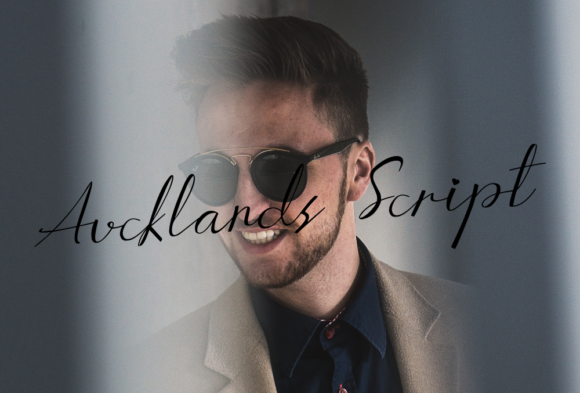
The Designer’s Delight: Aucklands Script Font
I’ll never forget the time I was working on a wedding invitation project, and my client asked for a font that was “elegant, yet playful.” I scoured the internet, tried out dozens of fonts, but nothing seemed quite right. That was until I stumbled upon Aucklands Script. This lovely, light, and elegant handwritten font effortlessly elevated my design with its sophisticated charm. In this article, I’ll share my experience with Aucklands Script, its features, and how to make the most of it in your creative projects.
- ✨ Elegant and refined aesthetic, perfect for high-end designs
- ✅ Light and airy feel, great for creating visual balance
- 💫 Beautifully crafted letterforms with subtle imperfections
- 🎨 Highly versatile, suitable for a wide range of creative projects
While Aucklands Script is an exceptional font, there are a few things to keep in mind:
- 🤔 Limited character set, may not be suitable for multilingual projects
- ⚠️ Some users may find the font too delicate for certain design applications
Aucklands Script was designed with the intention of creating a font that would evoke the elegance and sophistication of handwritten calligraphy. The designer, inspired by the beautiful landscapes and architecture of Auckland, New Zealand, crafted a font that would reflect the city’s refined and cultured atmosphere. The result is a font that is both timeless and modern, perfect for creative projects that require a touch of elegance.
| What is Aucklands Script? | Aucklands Script is a lovely, light, and elegant handwritten font, perfect for creative projects that require a touch of sophistication and refinement. |
| Is Aucklands Script suitable for body text? | While Aucklands Script is an elegant font, it’s best suited for headlines, titles, and short paragraphs. For body text, a clearer font may be more suitable. |
| Does Aucklands Script support OpenType features? | Yes, Aucklands Script supports OpenType features, including glyphs and stylistic alternates. Follow the platform-specific instructions to access these features. |